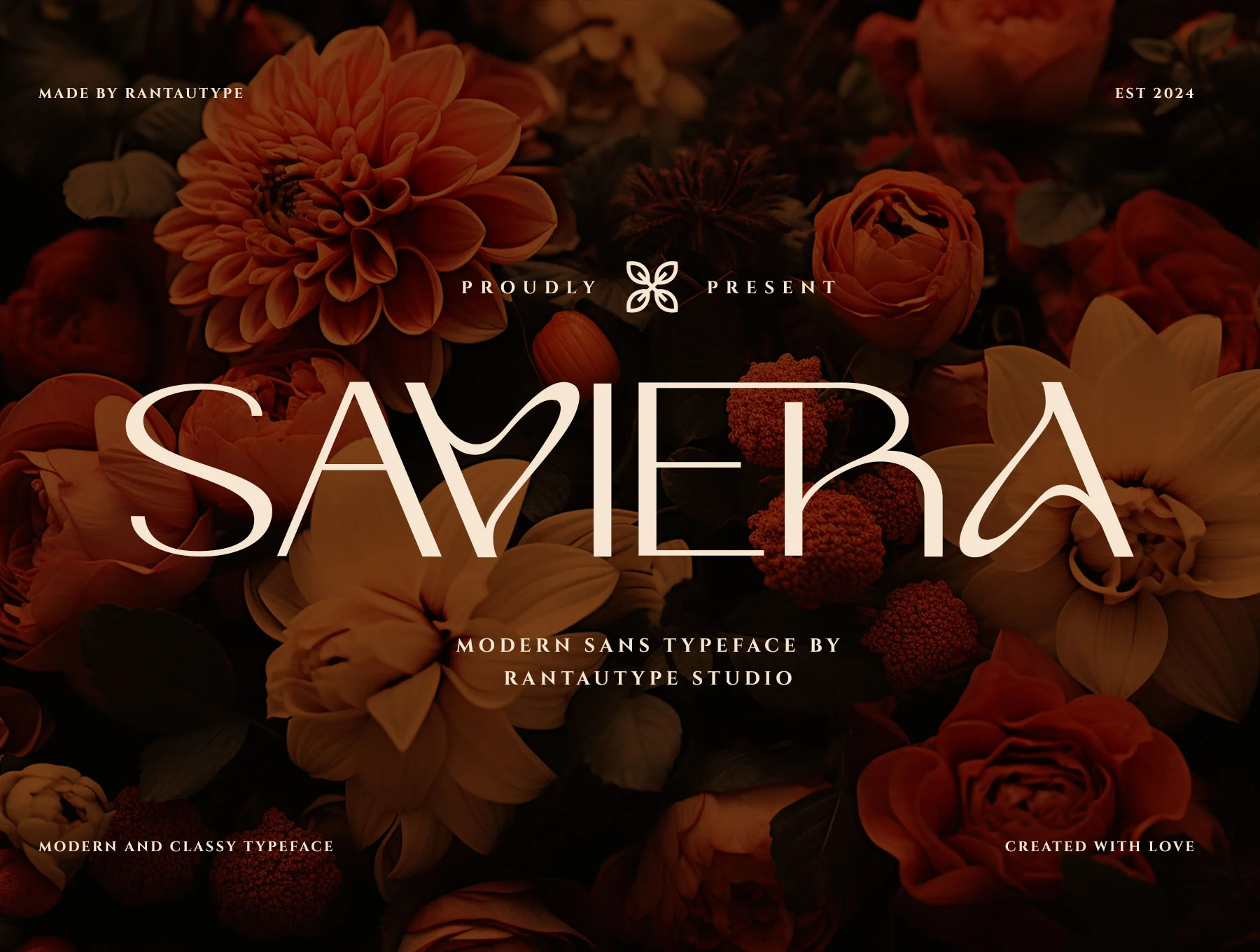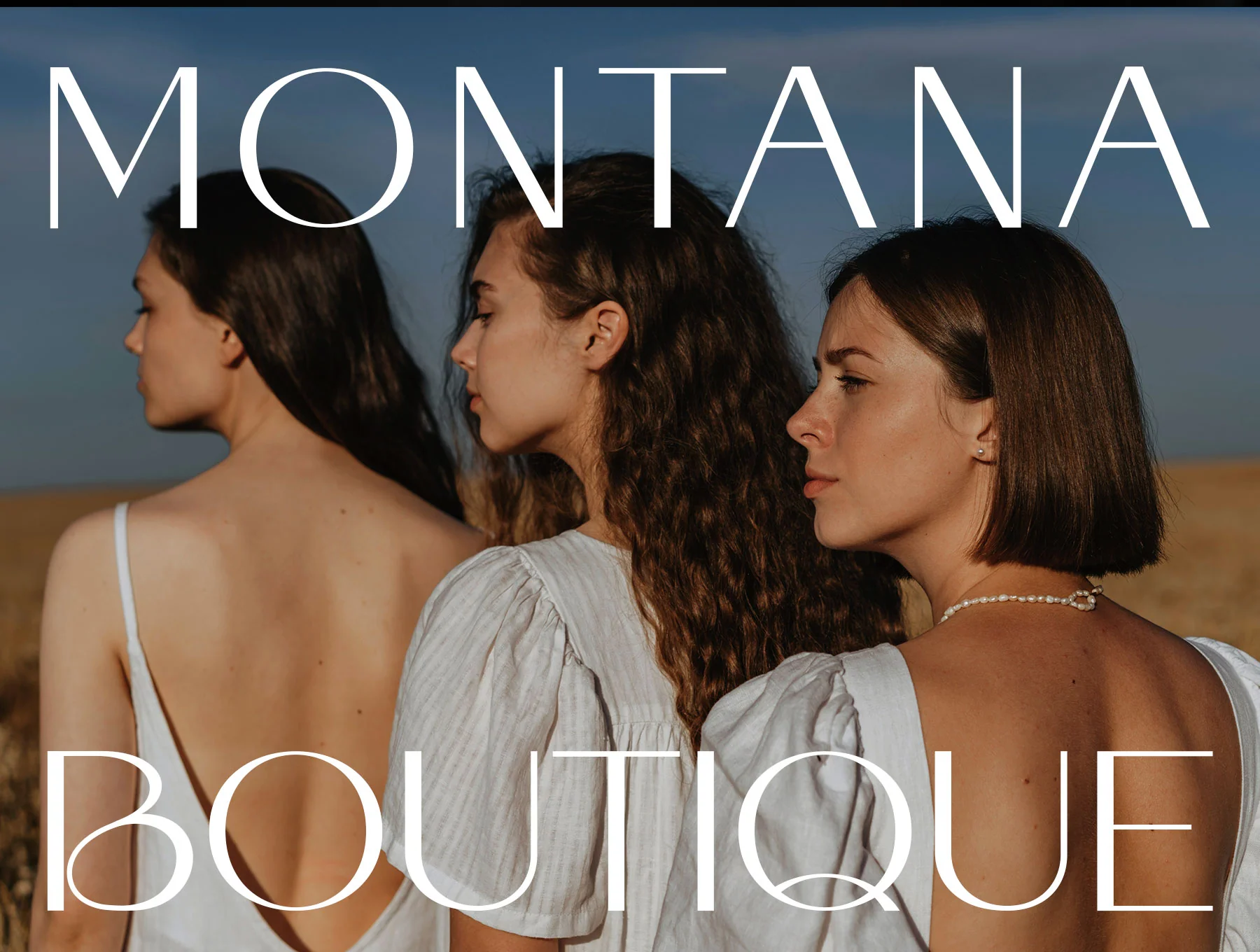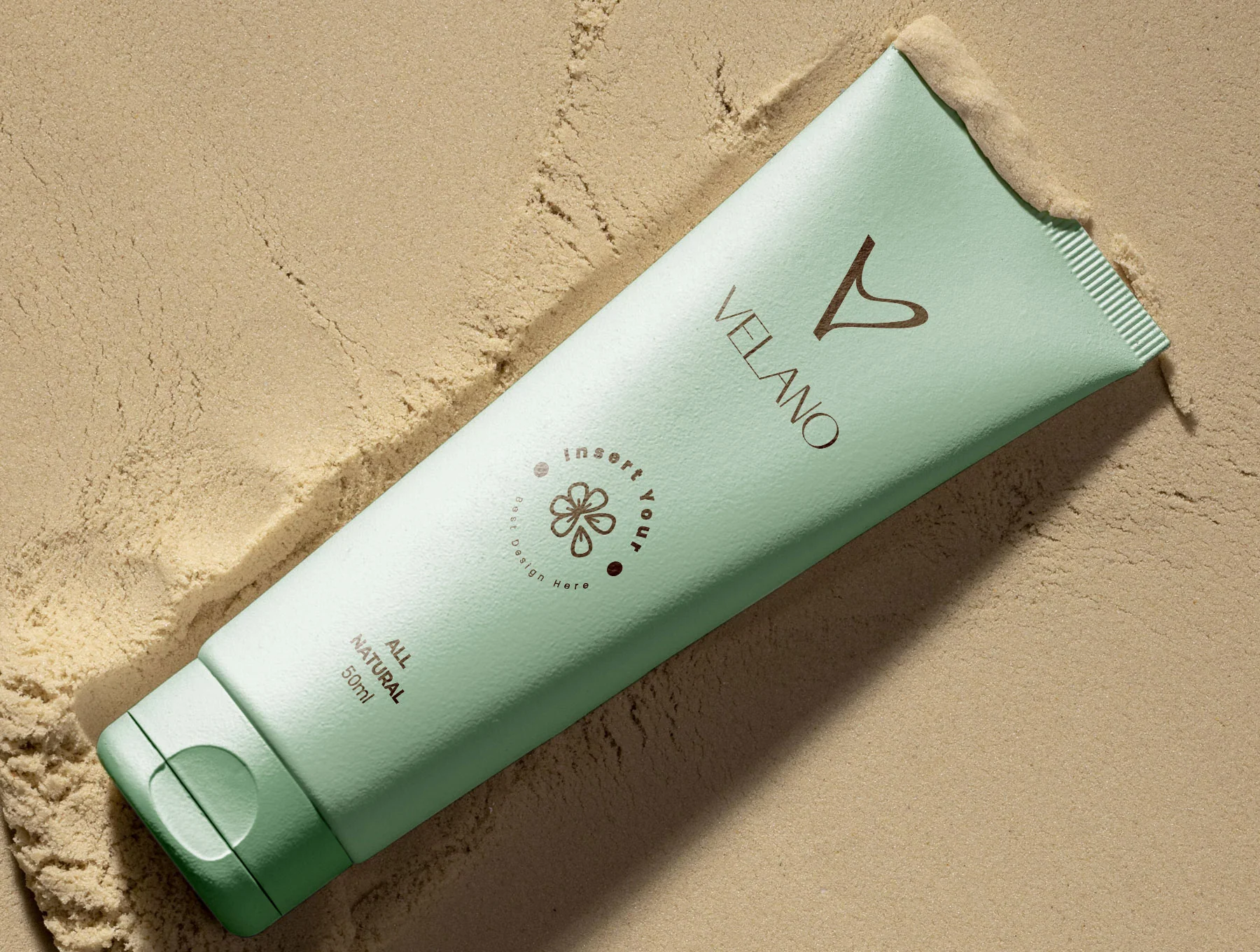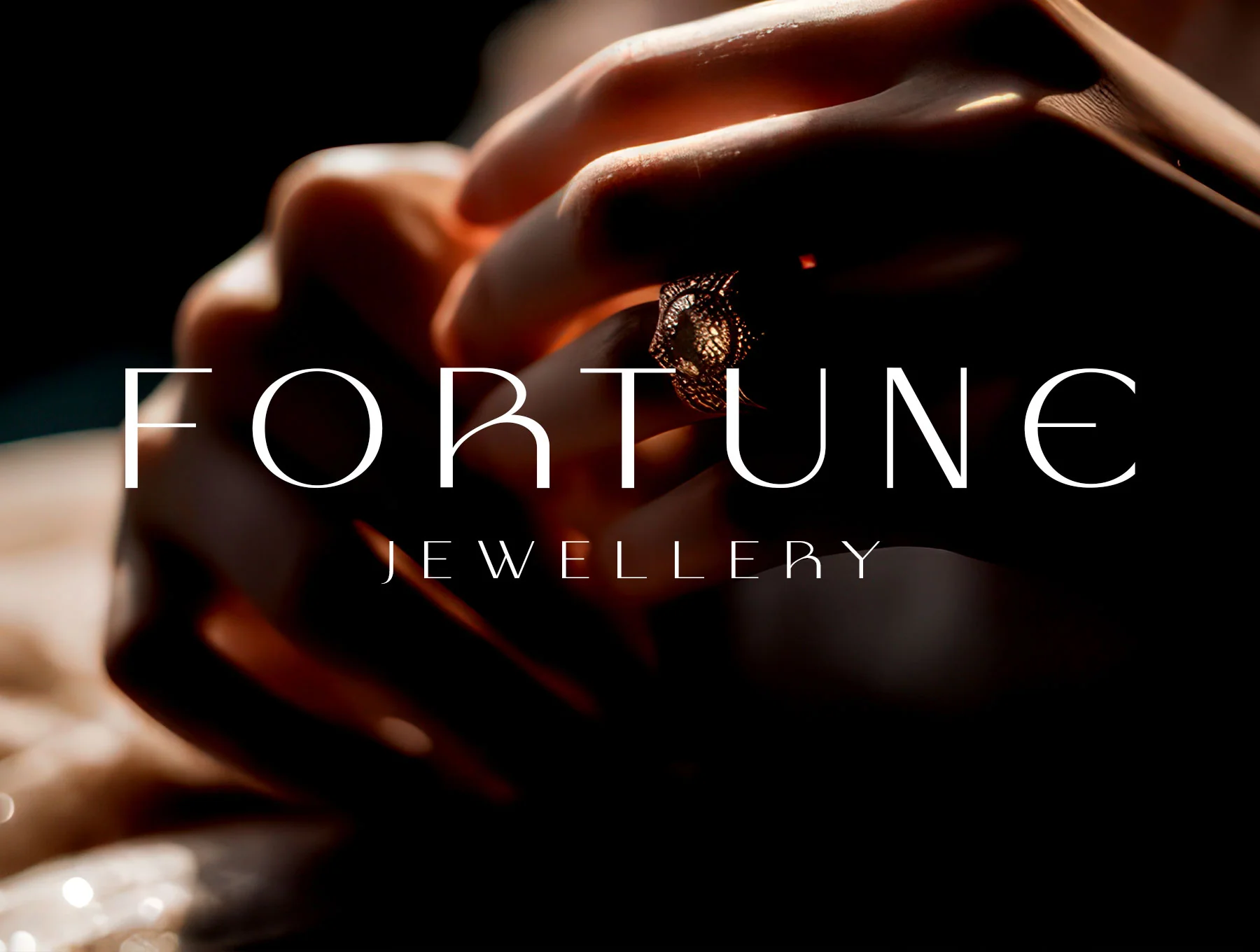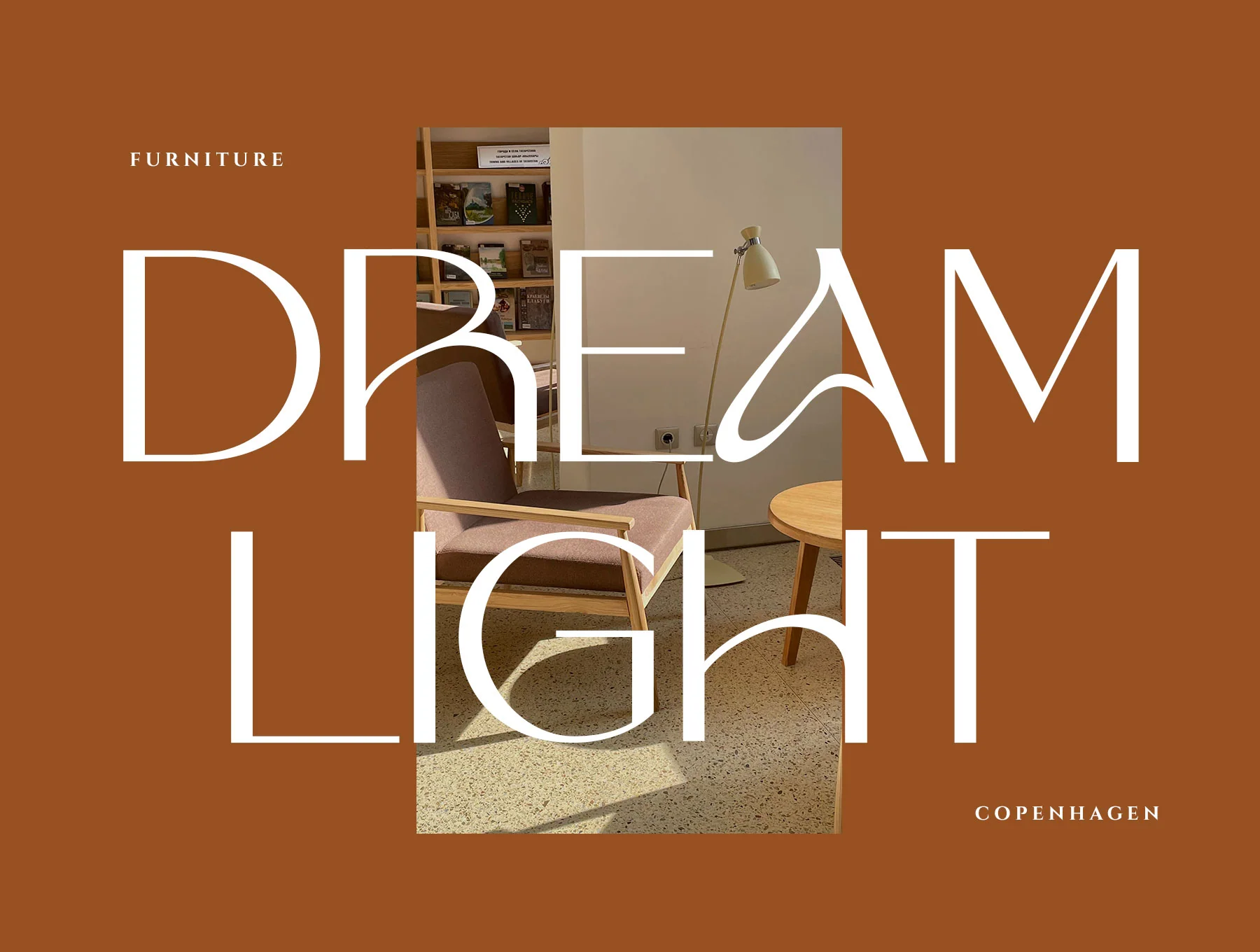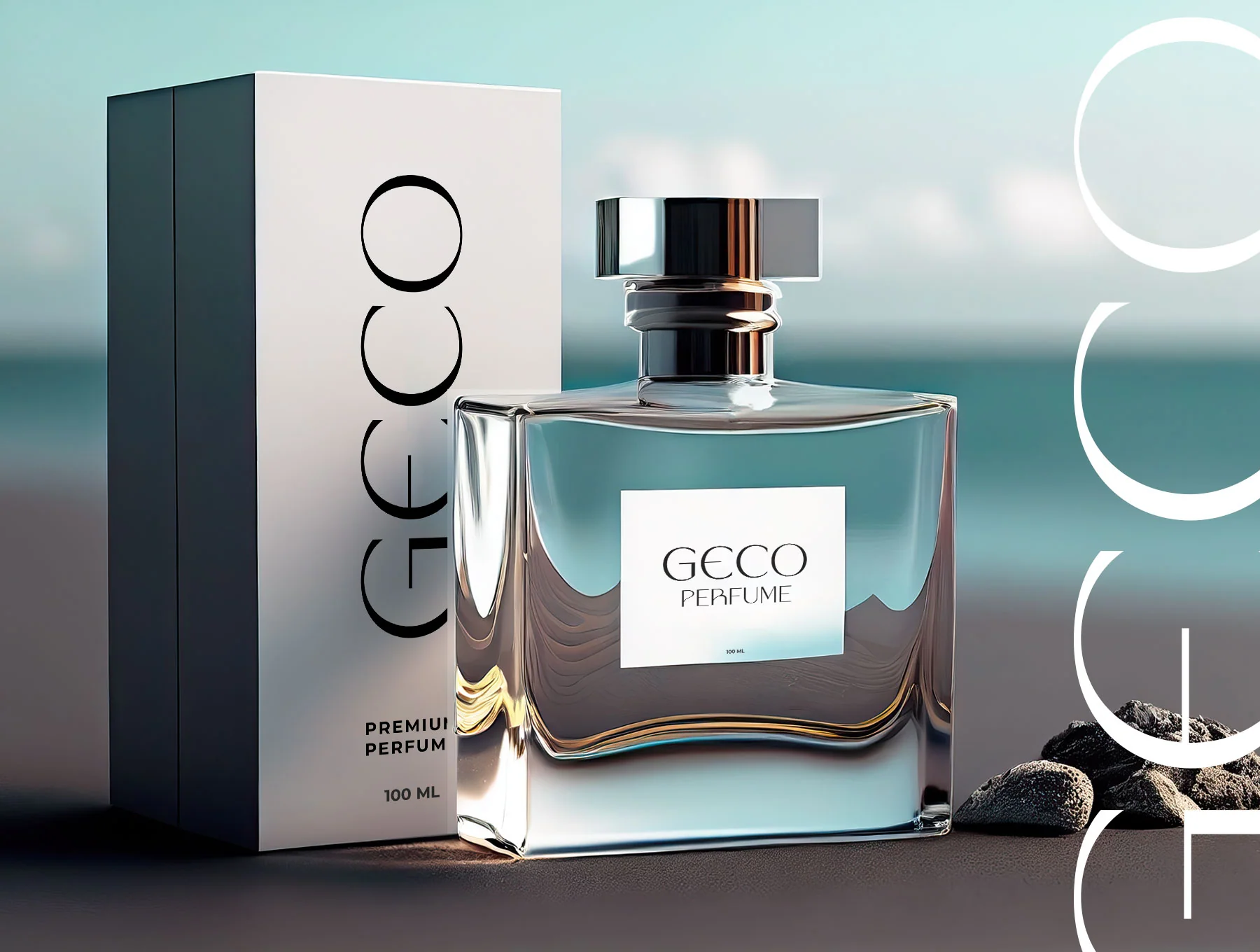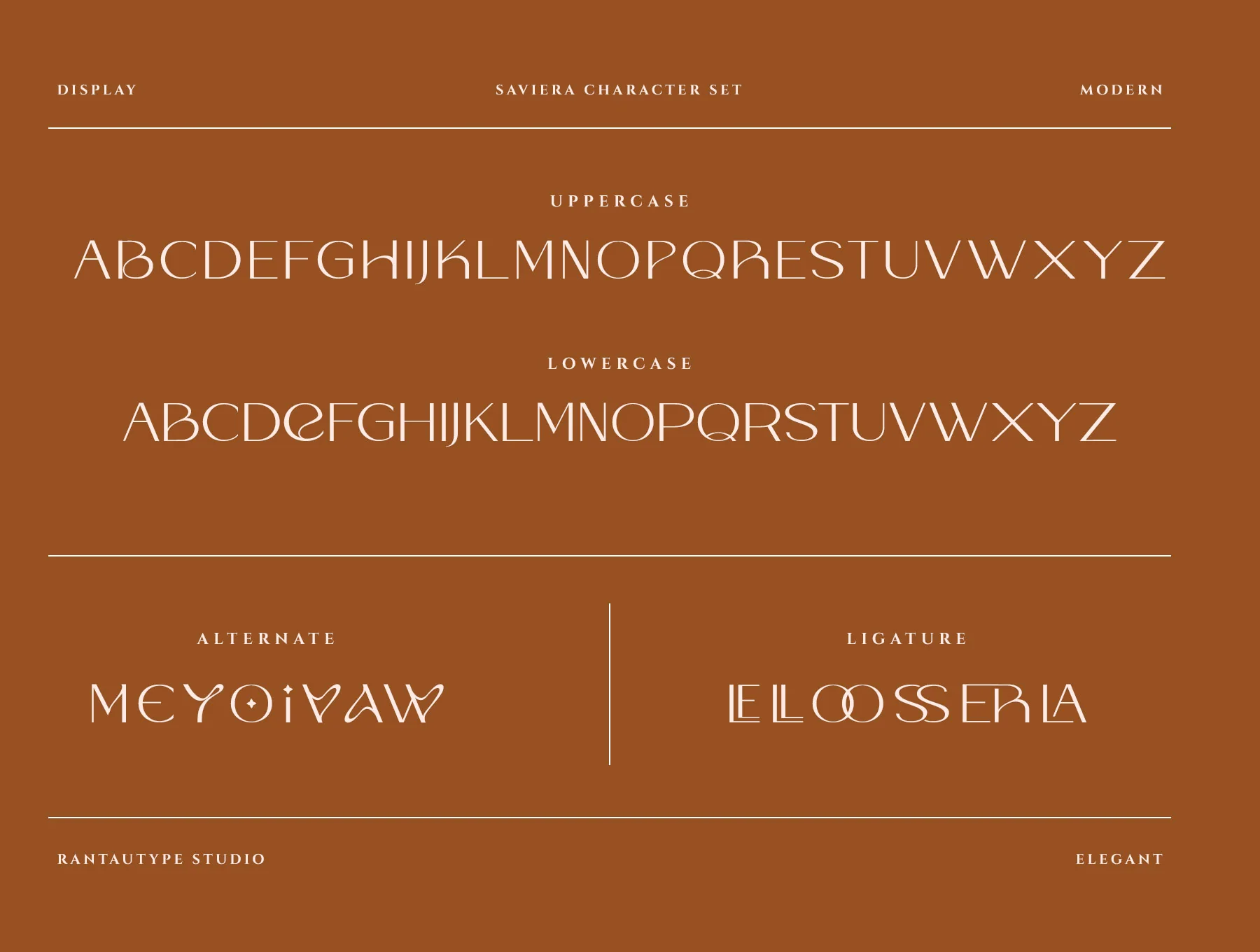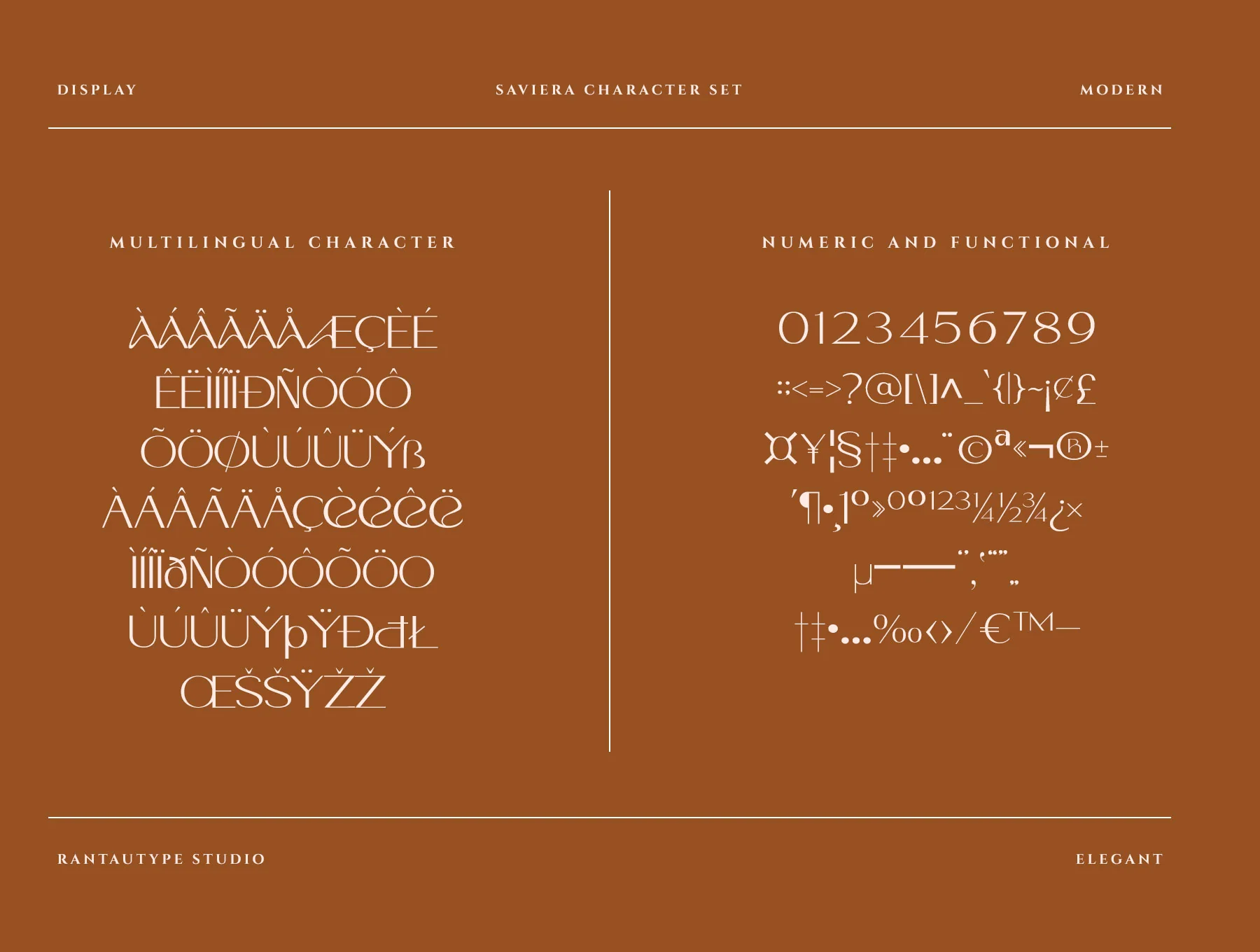
Saviera Modern Sans Typeface
Saviera Contemporary Sans Font
Standard character glyphs
Numerical and functional characters
Alternative characters and ligatures
Saviera is a sleek, refined font influenced by fashion branding and minimalism, made to give designs a distinctive look. Great for logos, ads, photo marks, stationery, branding, magazines, invites, products, labels, and business projects. Includes OTF, TTF, WOFF, glyphs, numbers, alternates, ligatures, multilingual support, PC/Mac use, and popular design apps.